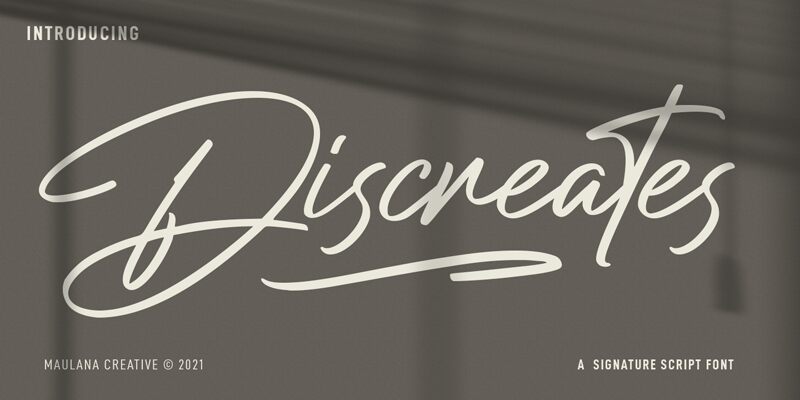
Discreates
Introducing Discreates – the light and whimsical handwritten font from Maulana Creative. Perfect for adding a touch of personality to any project, from posters to wedding invitations and more.